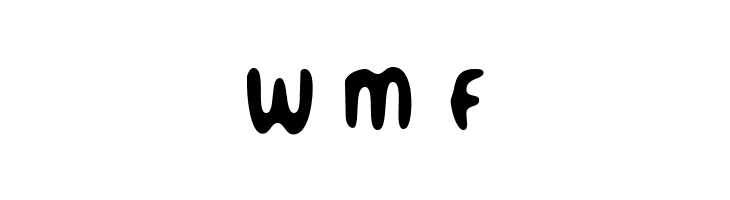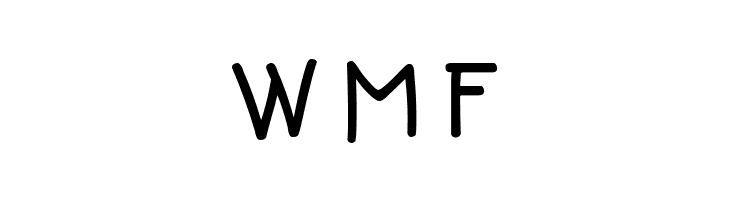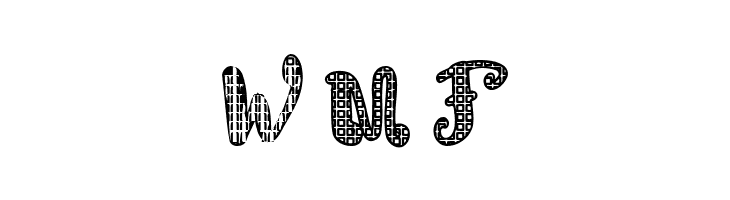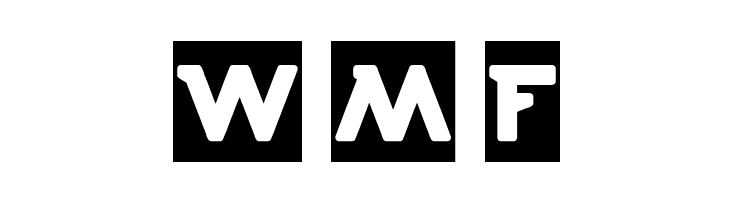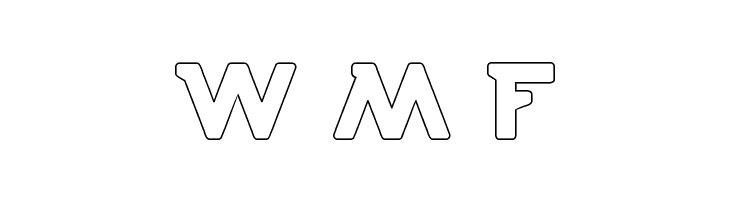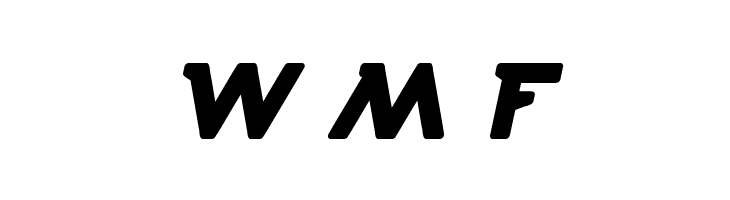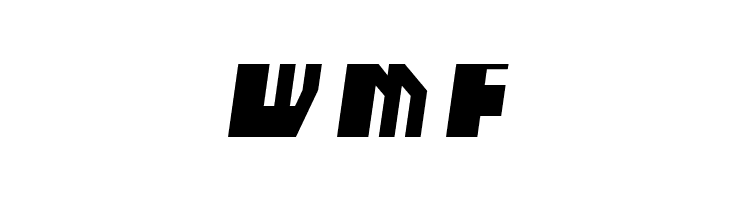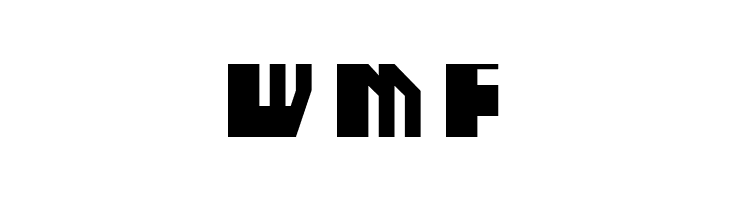
A dynamic and elegant script font with fluid, connected letterforms.
A playful, handwritten-style font with bold, rounded characters.
A bold, handwritten font with playful, rounded strokes and a casual style.
A lively and expressive handwritten font with dynamic strokes and artistic flair.
A lively and expressive handwritten font with flowing, interconnected letterforms.
A playful, bold font with a wavy, hand-drawn style.
A bold, playful handwritten font with a dynamic and friendly style.
A decorative and elegant script font with flowing, intricate letterforms.
A bold, italic font with a dynamic and playful style.
A bold, hollow, and modern font with rounded edges and a playful aesthetic.
A bold, hollow, geometric font with a modern aesthetic.
A bold, modern font with unique cut-out style and strong visual impact.
A bold, rounded font with a playful and modern style.
A bold, angular font with a geometric and modern design.
A bold, geometric font with angular shapes and a strong, commanding presence.
A playful, handwritten font with dynamic strokes and a casual style.
A bold, playful font with rounded, bubbly characters perfect for fun and whimsical designs.
A playful, bold font with rounded edges and a bubbly appearance.
A playful, checkered decorative font with bold, rounded characters.
A modern, minimalist font with thin, elongated letterforms and a sleek, uniform appearance.
A playful, hand-drawn font with bold, uneven strokes and a whimsical style.
A playful, hand-drawn style with rounded, uniform strokes and a casual feel.
A bold, playful font with rounded, hand-drawn letterforms.
A playful, rounded handwritten font with a bold and friendly style.
A playful, rounded handwritten font with a casual and friendly style.
A bold, flowing script font with a playful and elegant style.
A bold, expressive handwritten font with dynamic cursive letterforms.
A dynamic and elegant script font with fluid, cursive strokes.
A bold, playful font with exaggerated curves and a whimsical style.
A bold, italic font with a dynamic, comic book style.
A bold, star-patterned decorative font ideal for creative projects.
A bold, italicized decorative font filled with star patterns, perfect for playful designs.
An elegant, flowing script font with a natural handwritten style.
A bold, geometric font with characters enclosed in circles, offering high contrast and a modern look.